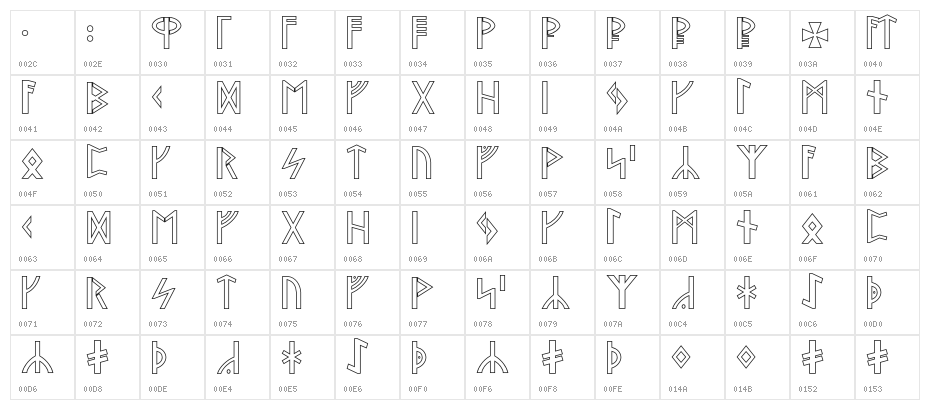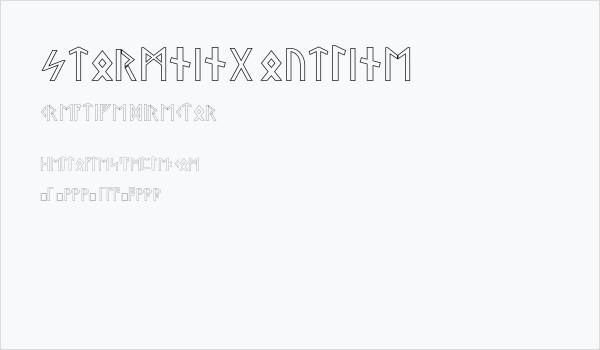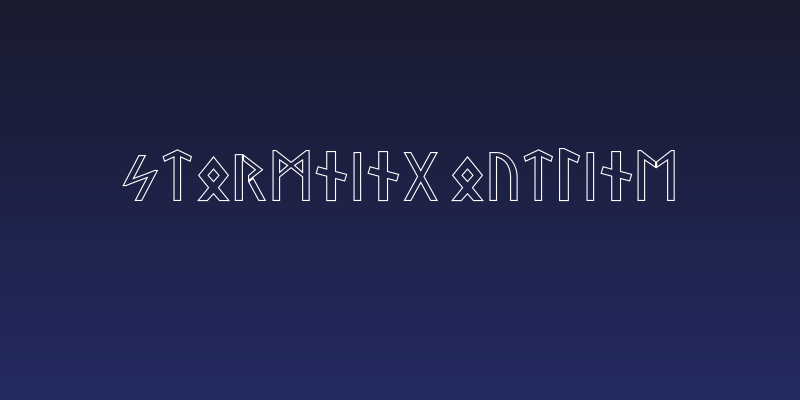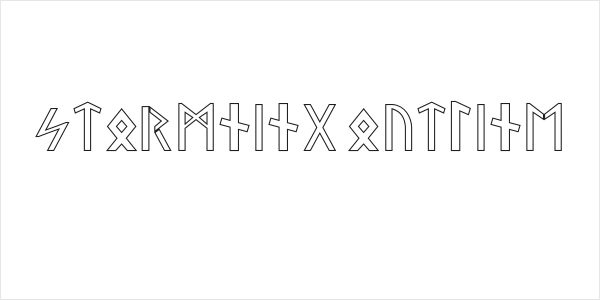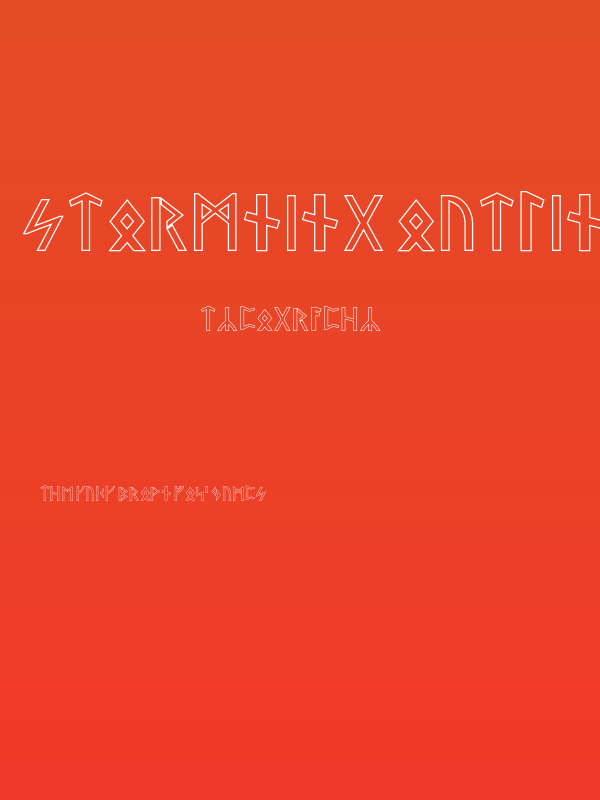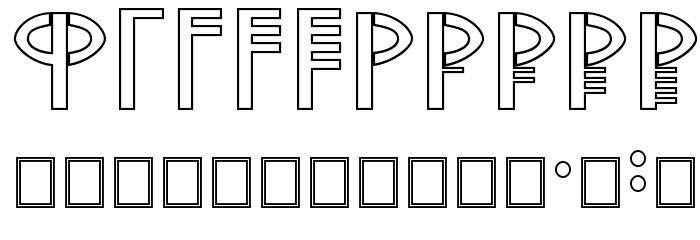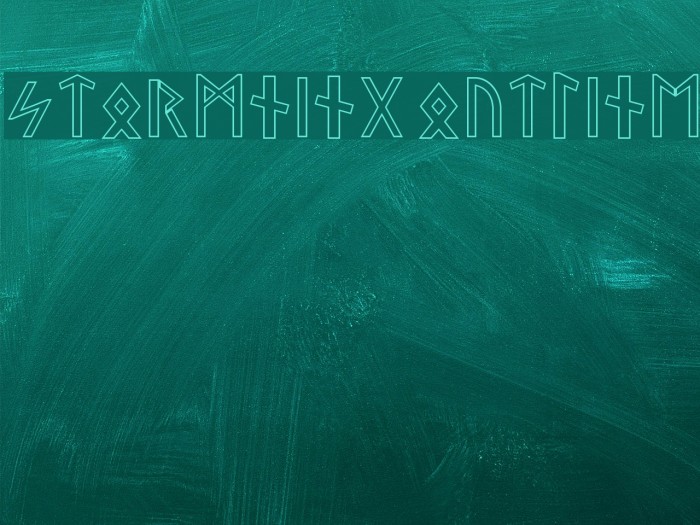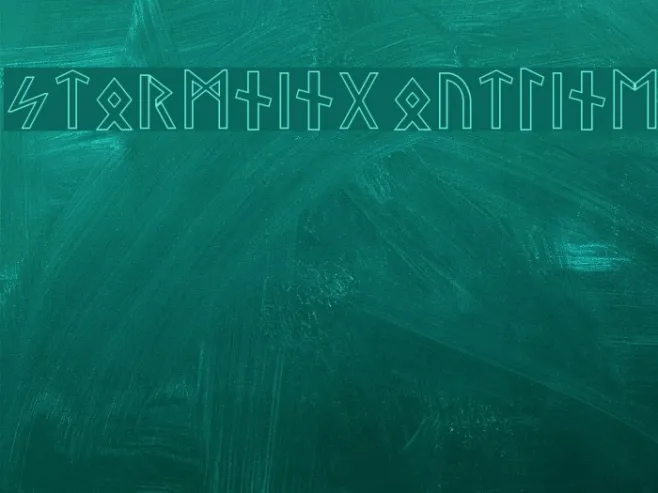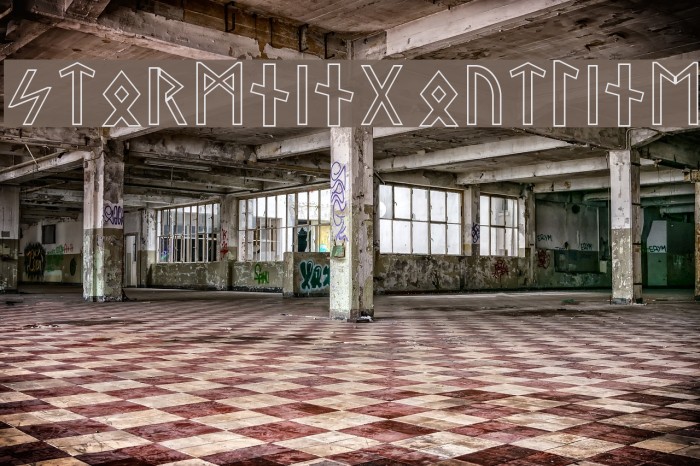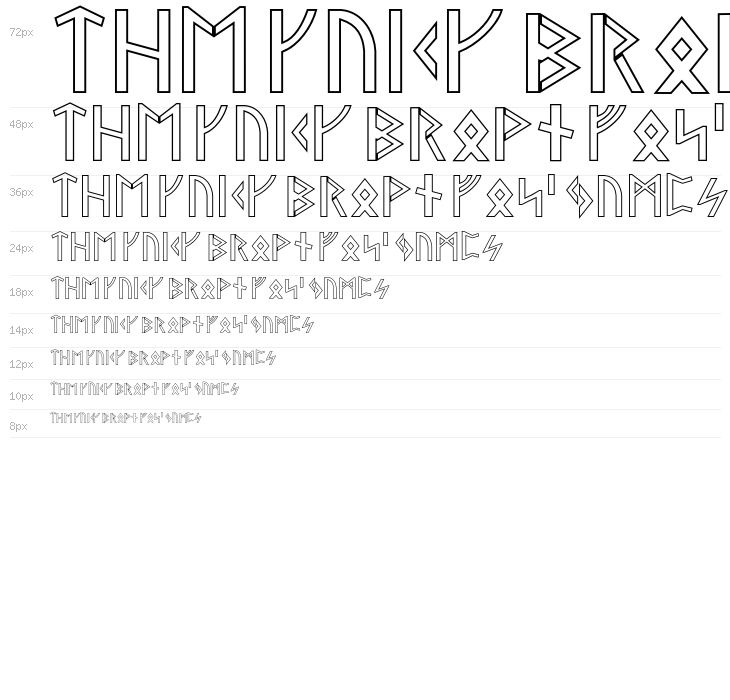
Stormning Outline Font
Stormning Outline Description
This font features a unique, angular design with an outline style that gives it a bold and striking appearance. The characters are constructed with sharp, geometric lines, creating a futuristic and edgy look. Each letter is distinct, with some incorporating elements reminiscent of ancient runes or symbols. The font maintains a consistent height across all characters, ensuring uniformity. The spacing between characters is moderate, allowing for readability while maintaining its distinctive style. This font is ideal for projects that require a modern and unconventional aesthetic, such as sci-fi themed designs or branding for tech startups.
| Proposed Projects | Ideal for sci-fi themed designs, tech branding, and modern posters. |